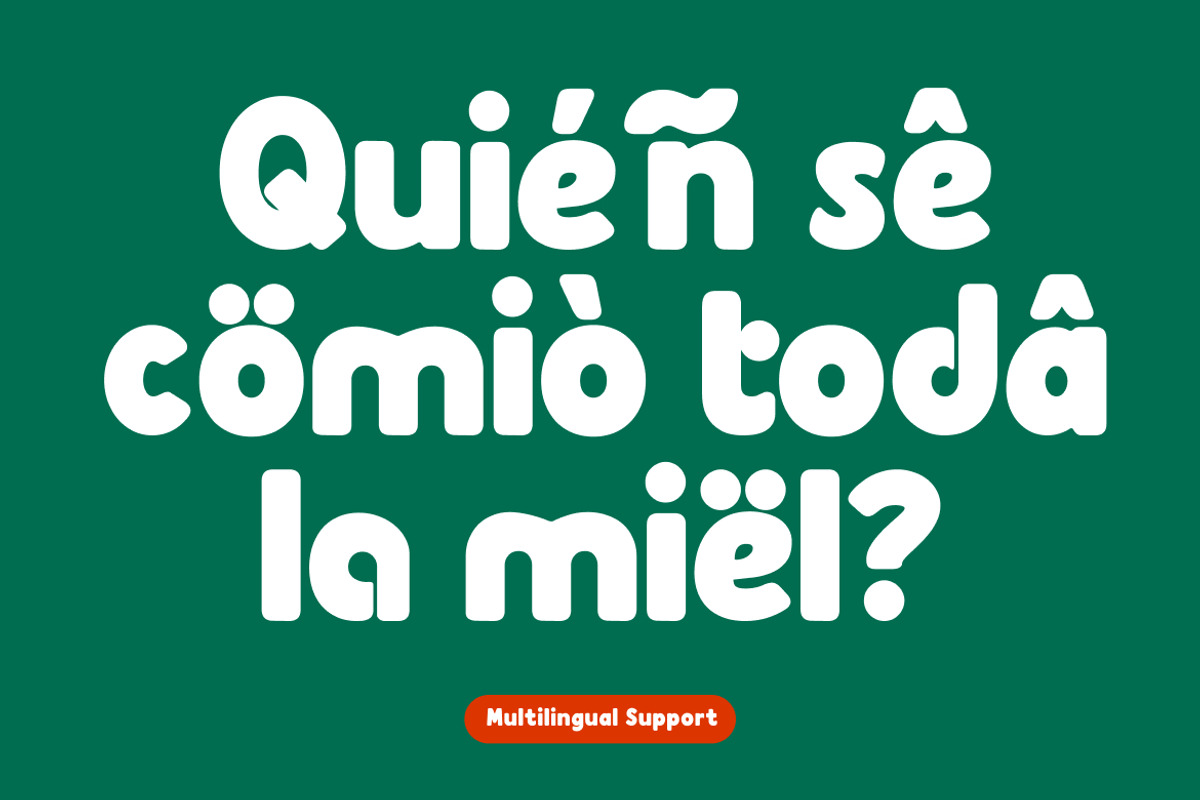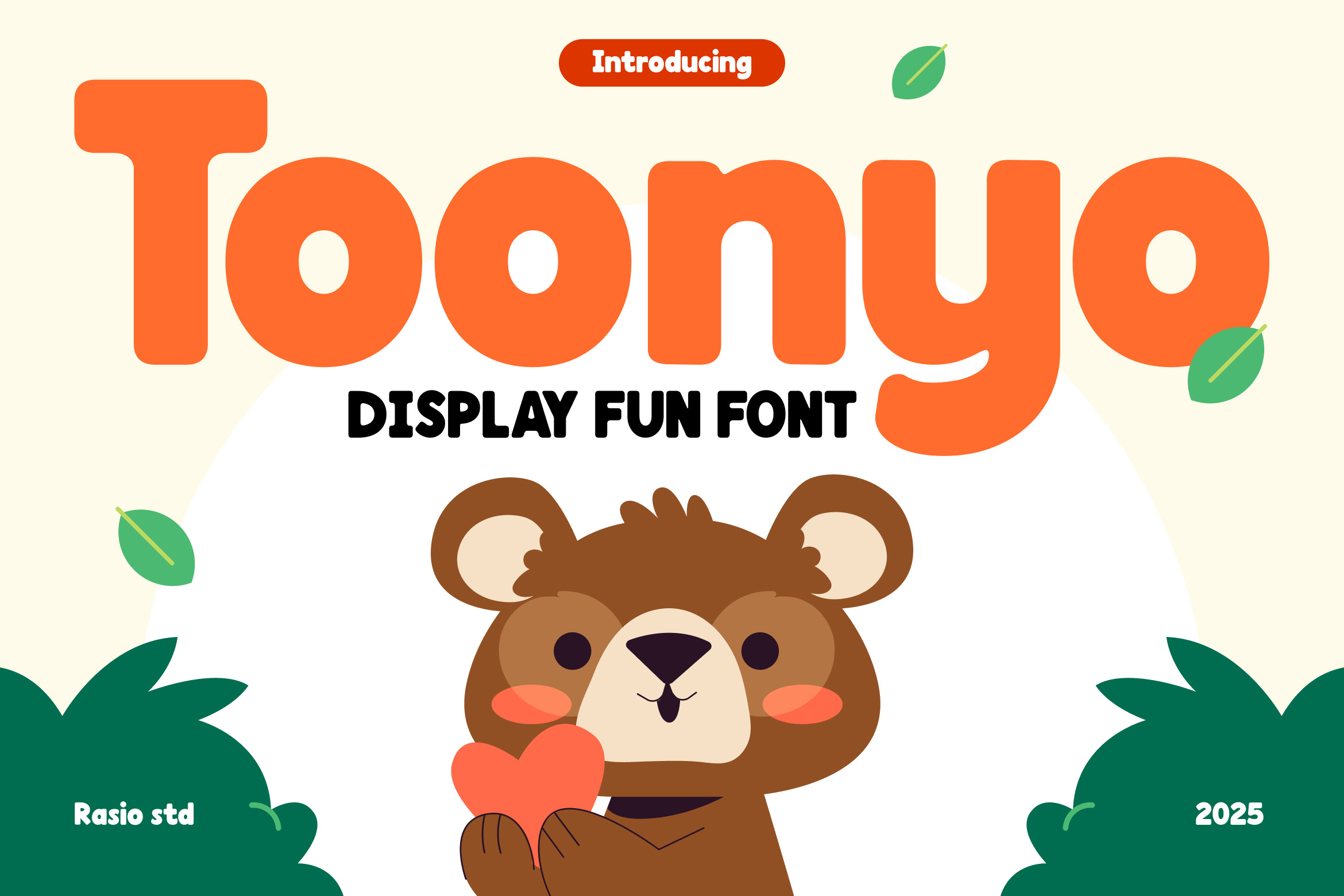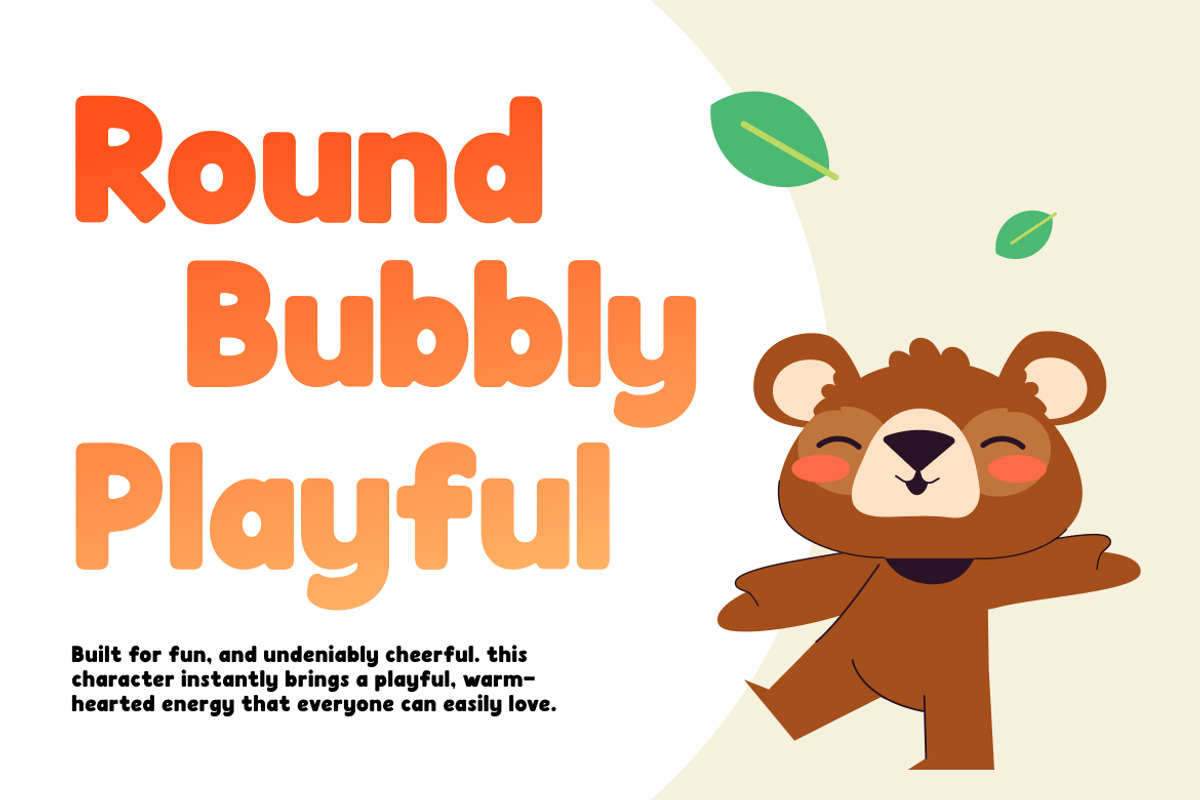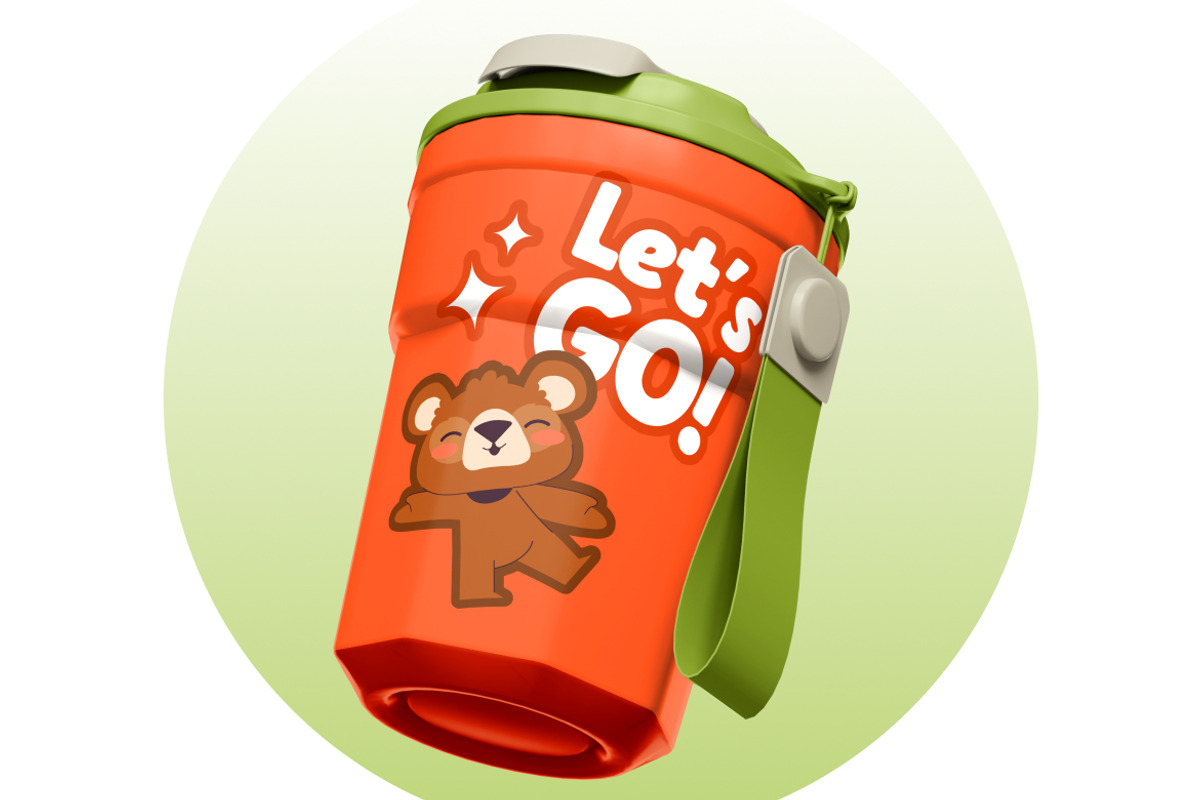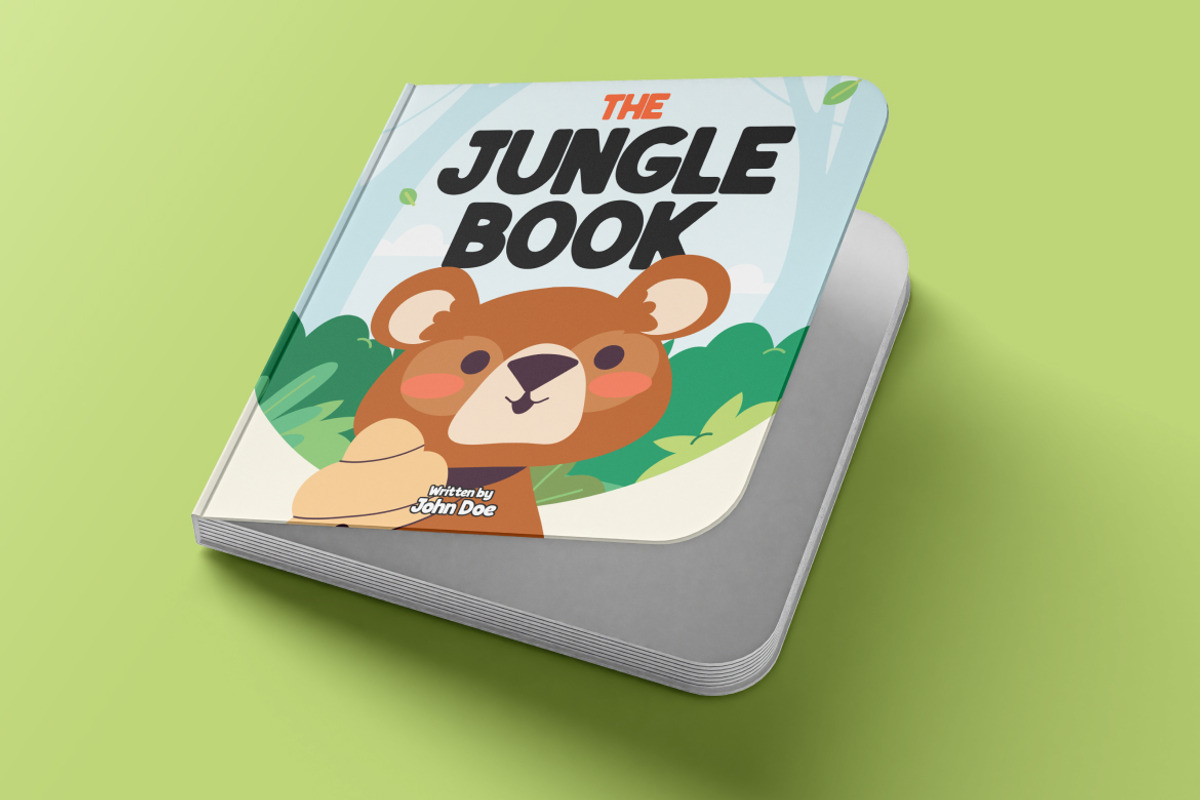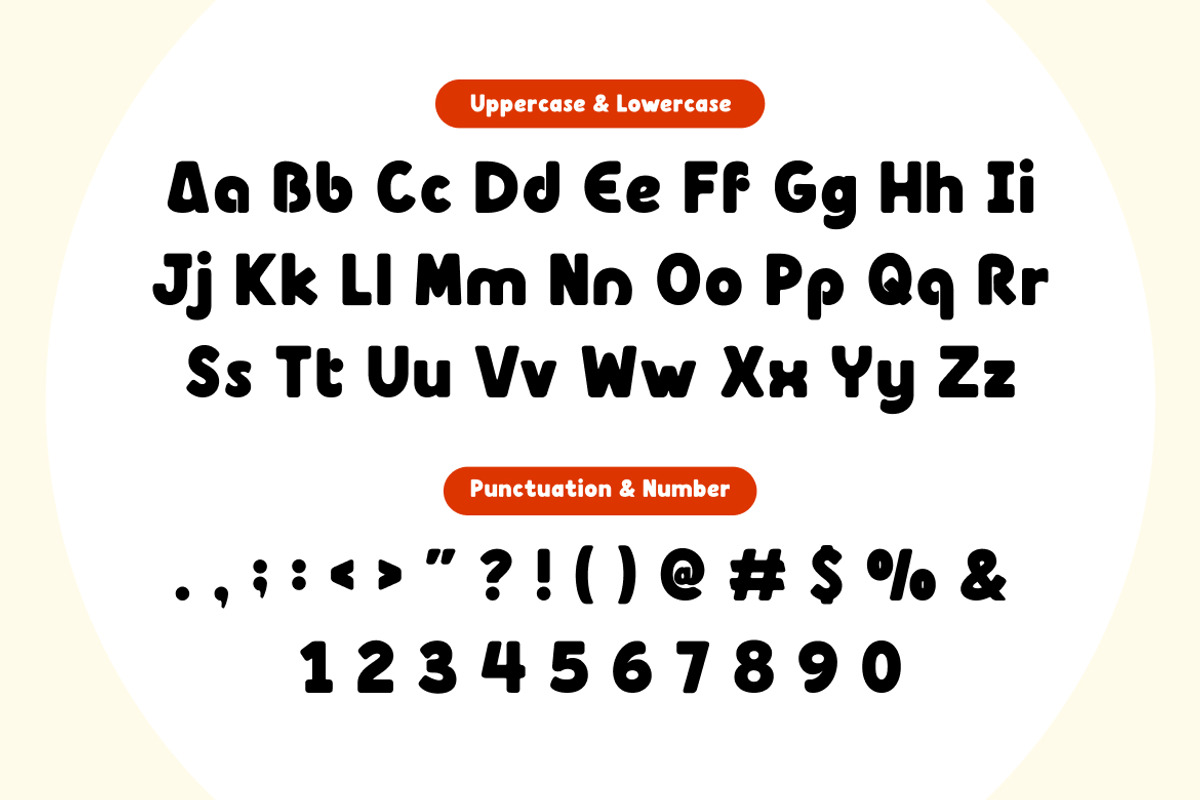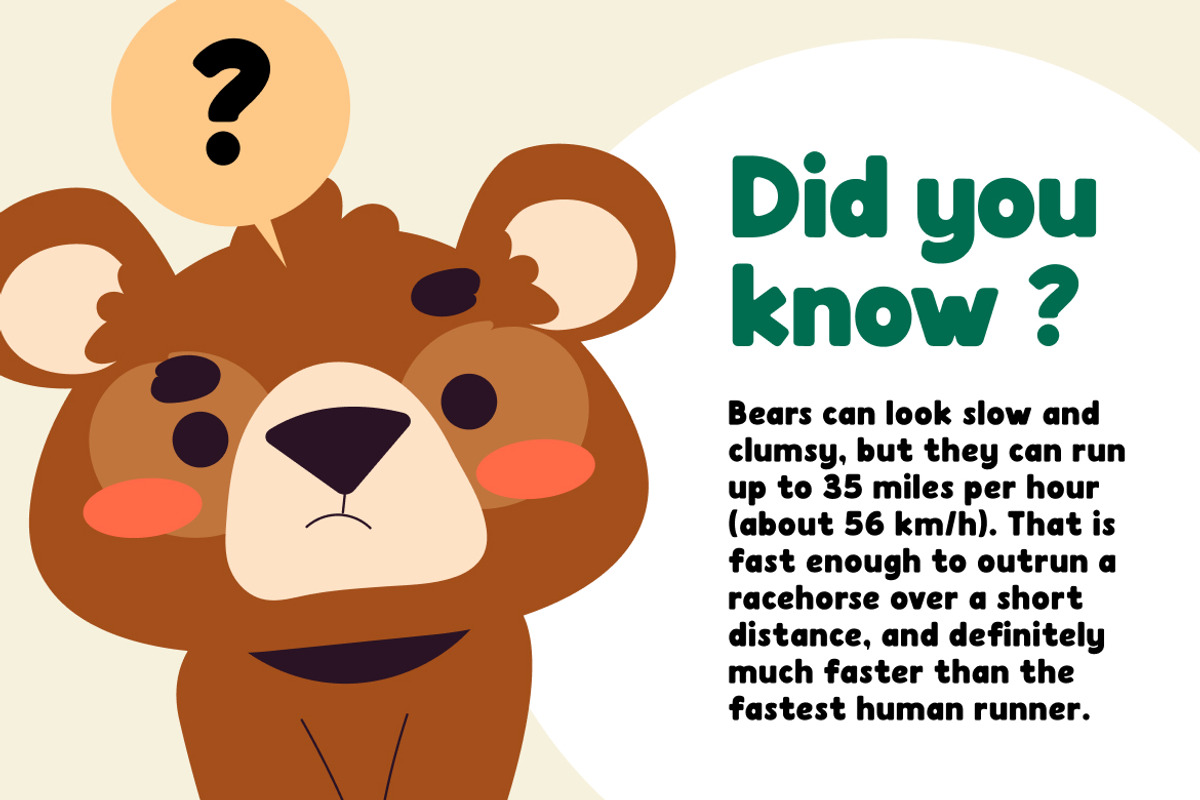
Toonyo Display Fun Font
Toonyo is a bold and irresistibly cheerful display font designed to bring warmth, energy, and playfulness into your creative projects. With its rounded forms, soft edges, and chunky proportions, Toony instantly delivers a friendly and approachable personality. Crafted for fun-forward branding and expressive design, this typeface includes uppercase, lowercase, numerals, punctuation, and multilingual support.
Toonyo is highly relevant for projects that need warmth and personality. It works beautifully for children’s brands, toy packaging, birthday invitations, storybooks, educational materials, social media campaigns, posters, merchandise, and playful logos. Its bold rounded style ensures strong visibility across both print and digital platforms.
- Bold rounded letterforms with soft, bubbly construction
- Playful proportions that create a friendly and cheerful personality
- Smooth curves and thick strokes for strong visual impact
- Slightly dynamic baseline flow for a lively, energetic feel
- Balanced spacing for clear readability in large display settings
- Children’s brand identity systems seeking a fun and friendly tone
- Kids product packaging, toy labels, and snack branding
- Playful social media templates and colorful digital campaigns
- Storybooks, educational materials, and classroom resources
- Birthday invitations, posters, and cheerful merchandise design